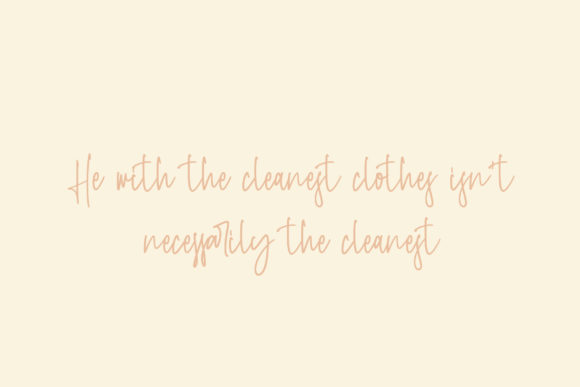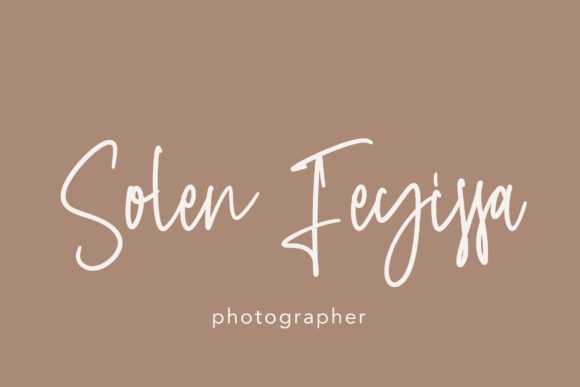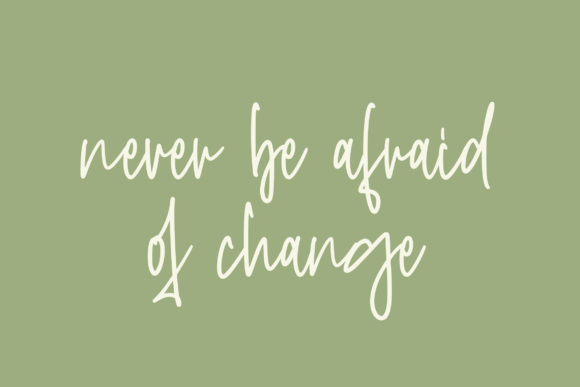
Introduction to Doorbell Font
Doorbell is a sweet and friendly handwritten font.
Its natural and unique style makes it incredibly fitting for a large pool of designs The only limit is your imagination.
Key Features of Doorbell Font